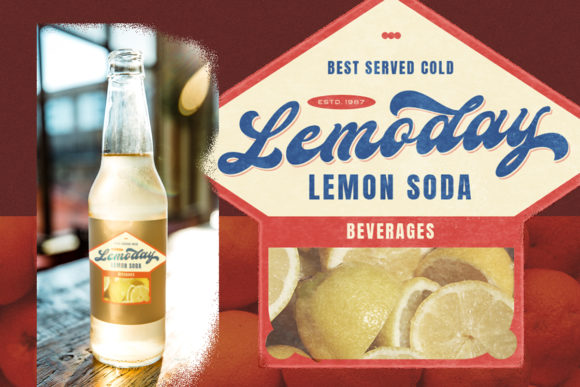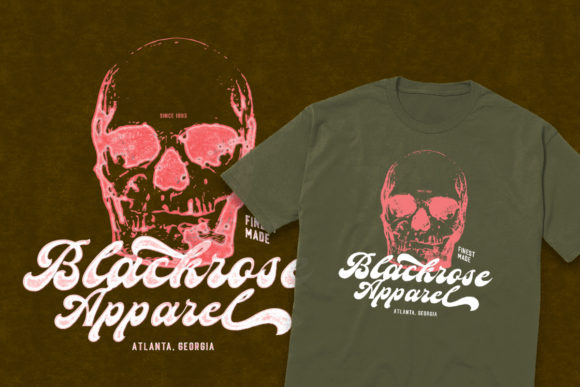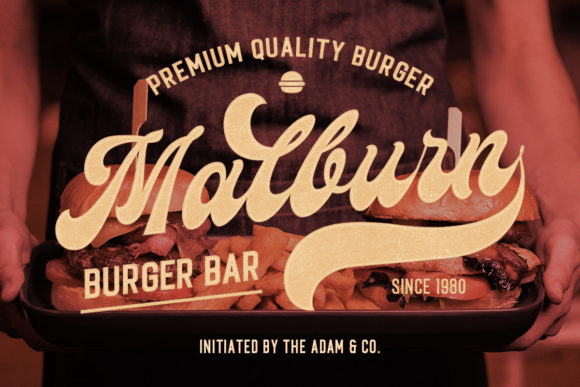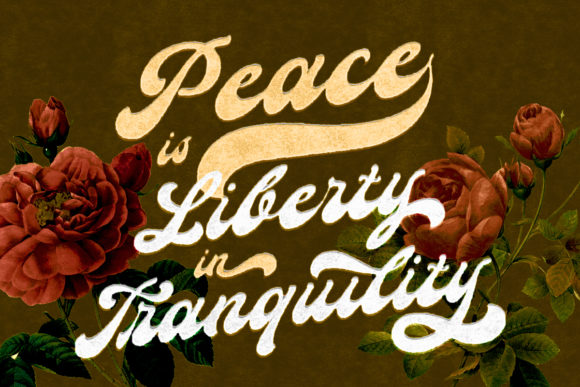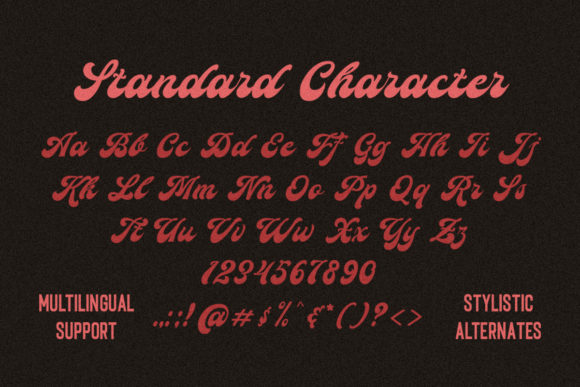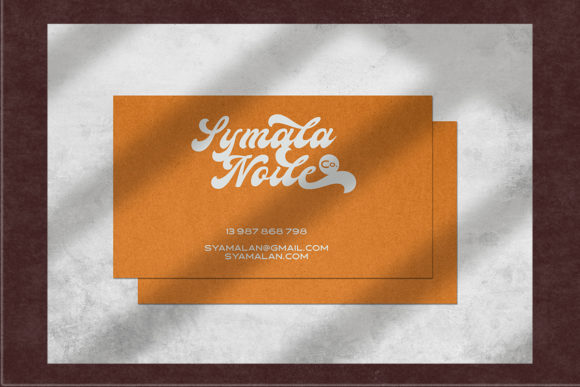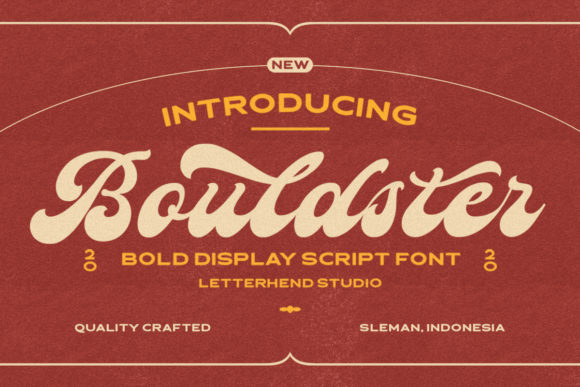
The Bouldster Font: A Daring and Stylish Addition to Your Design Arsenal
I’ll never forget the design project that led me to discover the Bouldster font. I was working on a branding project for a trendy new coffee shop, and I was struggling to find the perfect font to capture their bold and adventurous vibe. That’s when I stumbled upon Bouldster, a ravishing and daring handwritten font that instantly caught my attention. In this article, I’ll share my experience with Bouldster, its features, and how to make the most of it in your designs.
An Honest Review of Bouldster Font
So, what makes Bouldster special? Here are some things I love about this font:
- ✨ Strong and confident: Bouldster exudes a sense of confidence and strength, making it perfect for headlines and logotype projects.
- ✅ Nostalgic character: This font has a unique, nostalgic feel that adds a touch of personality to your designs.
- ✨ Dynamic and versatile: Bouldster can be used for a wide range of projects, from bold titles to elegant signage.
Of course, no font is perfect, and Bouldster has a few quirks:
- 🤔 Limited use in body text: Due to its bold and dynamic nature, Bouldster may not be the best choice for body text or long paragraphs.
- ⚠️ Some glyphs may require manual adjustment: Depending on your design software, you may need to manually adjust some glyphs to get the best results.
- Experiment with OpenType features, such as stylistic alternates and glyphs, to add more personality to your text.
- Explore the font’s OpenType features, such as ligatures and stylistic sets, to add more depth to your text.
The Backstory Behind Bouldster Font
Bouldster was designed with the goal of creating a font that’s both bold and elegant. The designer, inspired by vintage signs and posters, aimed to create a font that’s both nostalgic and modern. The result is a font that’s perfect for designers, crafters, and creative hobbyists looking to add a touch of personality to their designs.
| Font Name | Bouldster Font |
| Author | letterhend |
| What is Bouldster font best used for? | Bouldster is perfect for headlines, logotypes, and titles where you want to make a bold statement. |
| Does Bouldster support OpenType features? | Yes, Bouldster supports OpenType features, including stylistic alternates, ligatures, and glyphs. |